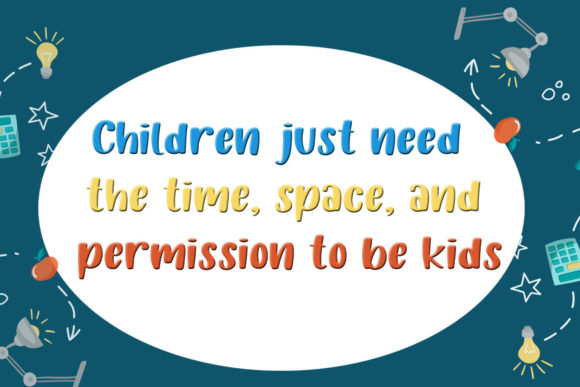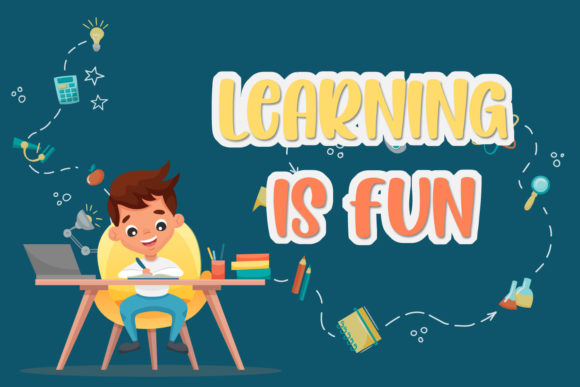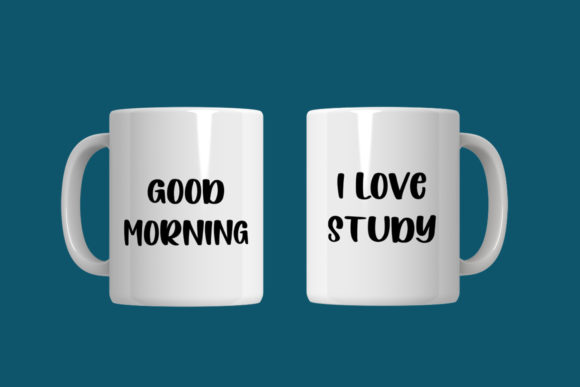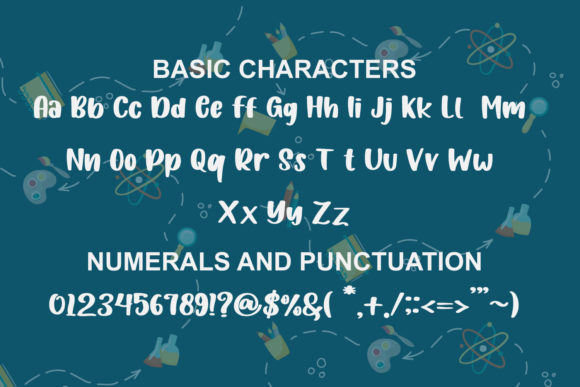
Introducing Funny Study Font: The Perfect Blend of Cuteness and Playfulness
Are you tired of using the same old fonts in your designs? Look no further! Funny Study Font is here to add a touch of whimsy and fun to your projects. This adorable display font is perfect for fashion branding, editorial designs, and any other creative endeavor that needs a dash of personality.
What Makes Funny Study Font So Special?
Funny Study Font is a cute and playful display font that is defined by its smooth curves. The font’s unique shape and structure make it stand out from the crowd, adding a touch of sophistication and elegance to any design. The smooth curves also give the font a friendly and approachable feel, making it perfect for brands that want to connect with their audience on a more personal level.
Perfect for Fashion Branding
Fashion branding is all about creating a unique and recognizable identity that sets you apart from the competition. Funny Study Font is the perfect tool to help you achieve this goal. The font’s playful and stylish vibe makes it ideal for fashion brands that want to convey a sense of fun and sophistication. Whether you’re designing a logo, label, or advertisement, Funny Study Font is sure to make your brand stand out.
Editorial Designs Made Easy
Editorial designs require a special kind of font that can convey the tone and personality of the content. Funny Study Font is perfect for editorial designs, such as magazine covers, article headers, and social media graphics. The font’s smooth curves and playful vibe make it easy to read and understand, even in large blocks of text.
Why Choose Funny Study Font?
So, why should you choose Funny Study Font for your next project? Here are just a few reasons:
- Unique and Playful Design: Funny Study Font has a one-of-a-kind design that is sure to grab attention and add a touch of personality to your projects.
- Smooth Curves: The font’s smooth curves make it easy to read and understand, even in large blocks of text.
- Fashionable and Sophisticated: Funny Study Font has a stylish and sophisticated vibe that makes it perfect for fashion branding and editorial designs.
How to Use Funny Study Font
Using Funny Study Font is easy! Here are a few tips to get you started:
- Pair it with Other Fonts: Funny Study Font pairs well with other fonts, such as sans-serif fonts or script fonts. Experiment with different combinations to find the perfect look for your project.
- Use it for Headings: Funny Study Font is perfect for headings and titles. Use it to add a touch of personality to your text and make it stand out.
- Experiment with Colors: Funny Study Font looks great in a variety of colors. Experiment with different colors and combinations to find the perfect look for your project.
In conclusion, Funny Study Font is a cute and playful display font that is perfect for fashion branding, editorial designs, and any other creative endeavor that needs a dash of personality. With its smooth curves and stylish vibe, this font is sure to add a touch of whimsy and fun to your projects. So why wait? Add Funny Study Font to your projects today and see the difference for yourself!
Whether you’re a designer, crafter, or DIY enthusiast, Funny Study Font is the perfect tool to help you create unique and eye-catching designs. So go ahead, get creative, and have fun with Funny Study Font!